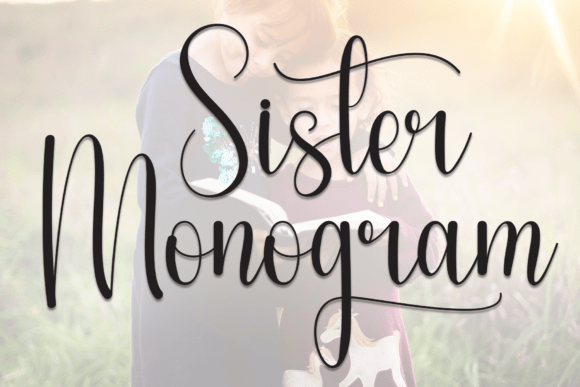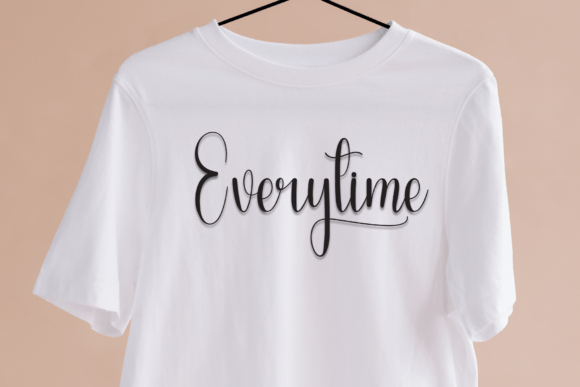
Sister Monogram Font
About the Sister Monogram Font
Let us introduce you to Sister Monogram Font, where timeless design meets modern craftsmanship. Sister Monogram is a stylish handwritten script font that blends modern elegance with a playful touch. Its fluid strokes and charming curves bring a personal feel to any design. Ideal for logos, packaging, and invitations, this typeface adds warmth, sophistication, and creativity to every project.
Sister Monogram Font Usage Examples
Sister Monogram Font Example